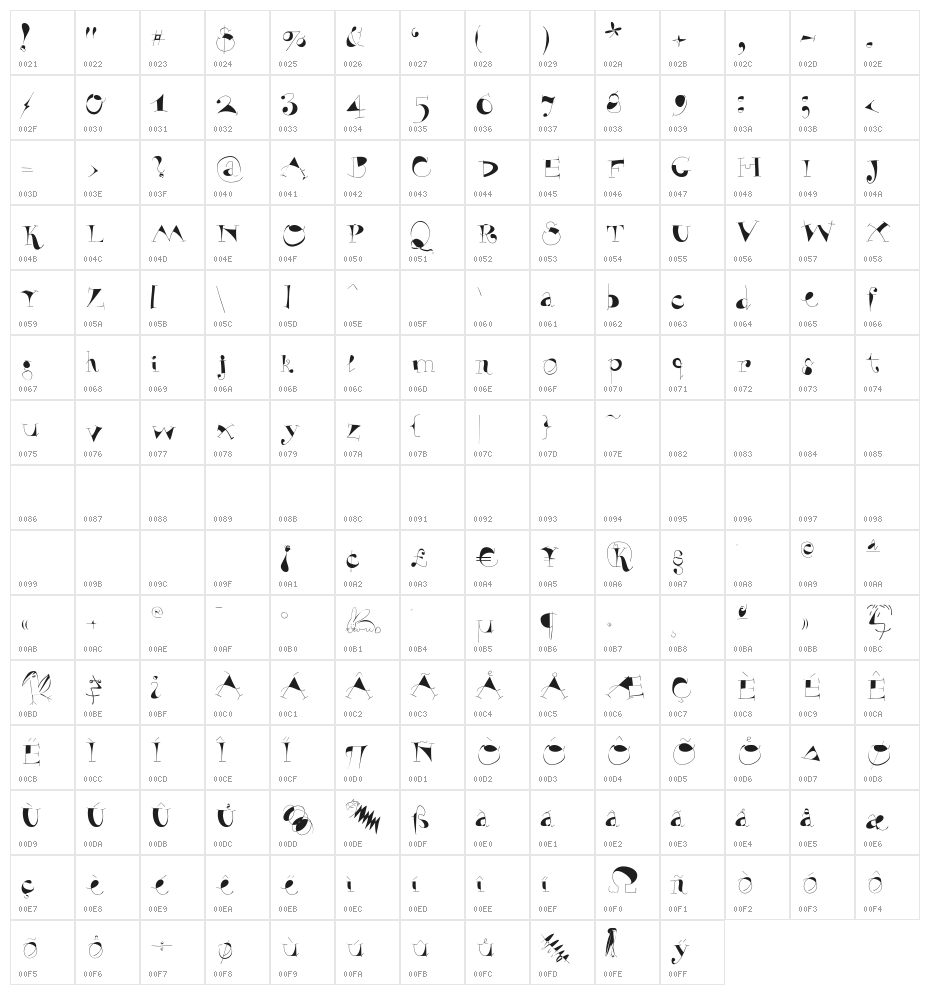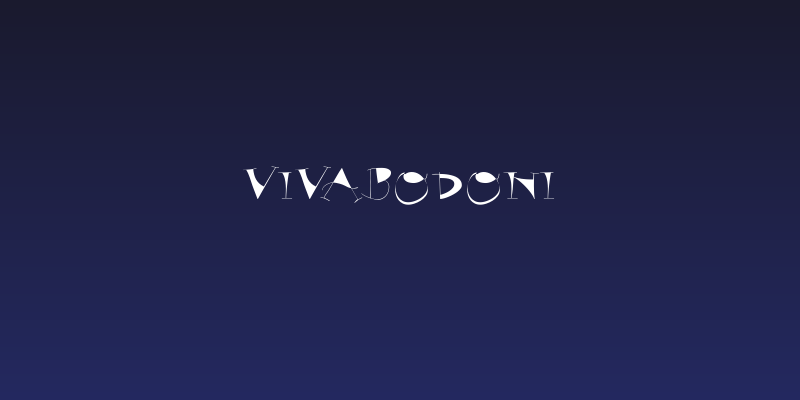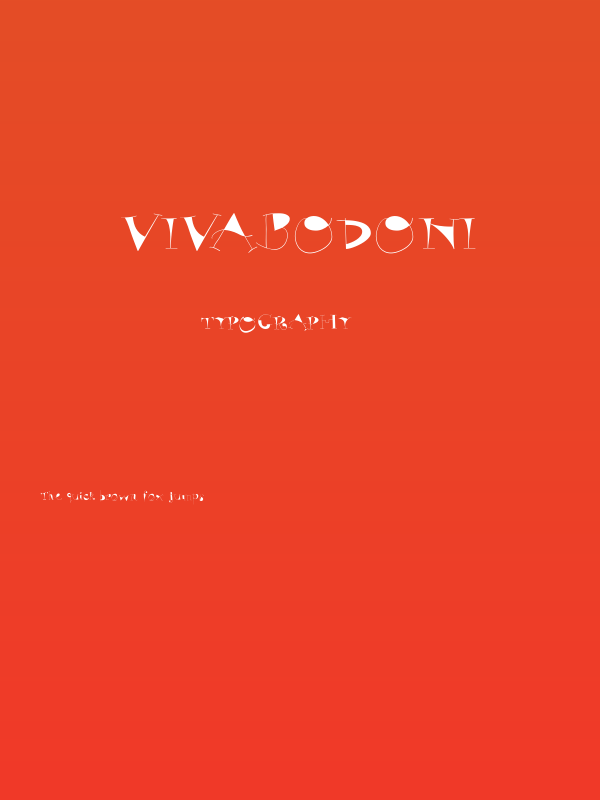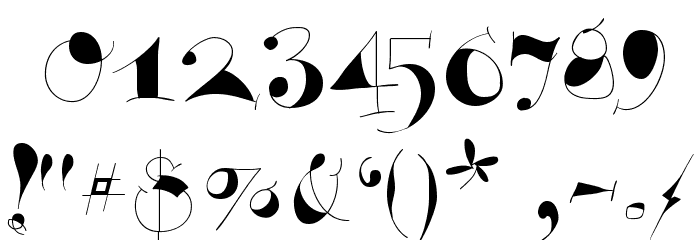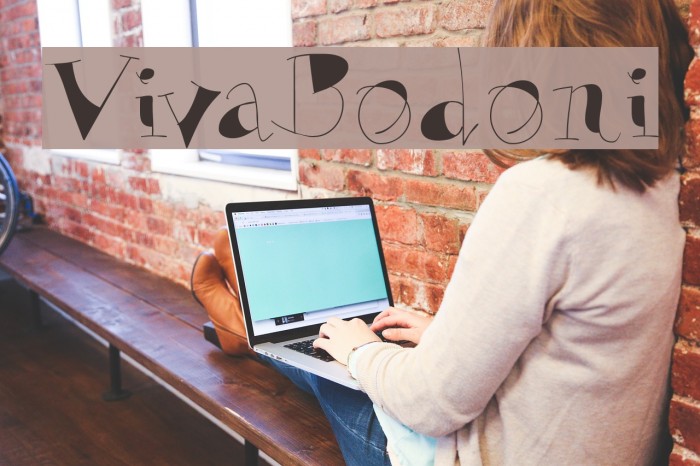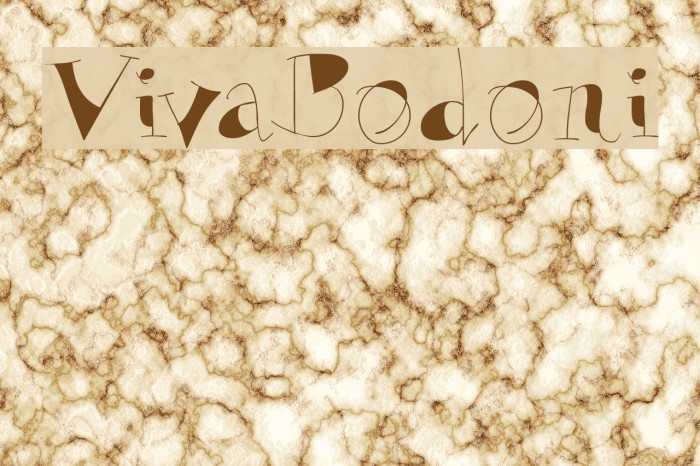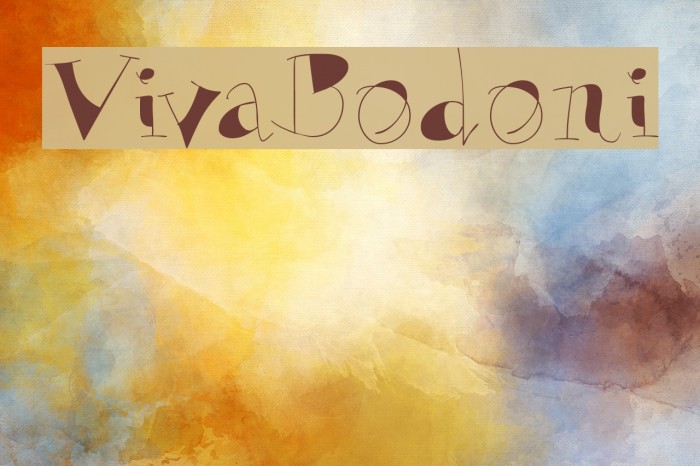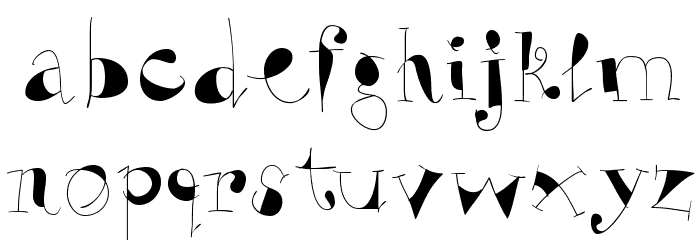
VivaBodoni Font
VivaBodoni Description
This font is a striking blend of elegance and modernity, characterized by its high contrast between thick and thin strokes. The uppercase letters exhibit a playful yet sophisticated flair, with exaggerated serifs and unique curves that give each character a distinct personality. The lowercase letters maintain this whimsical style, featuring elongated ascenders and descenders that add to the font's dynamic appearance. The numerals are equally expressive, with bold, sweeping lines that ensure visibility and impact. Special characters are designed with the same attention to detail, making them seamlessly integrate with the rest of the typeface. Overall, this font exudes a sense of artistic creativity, making it ideal for projects that require a touch of elegance and individuality.